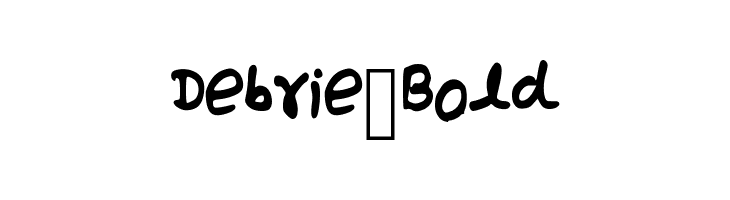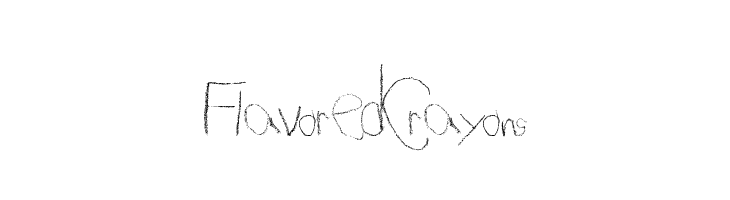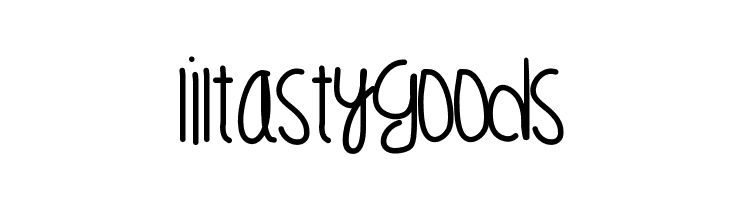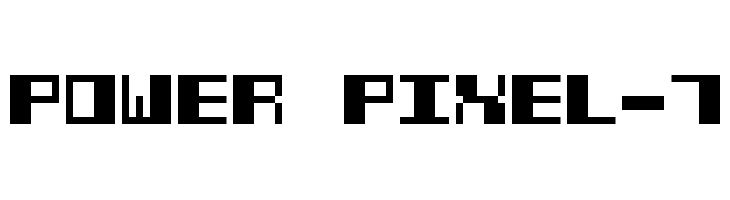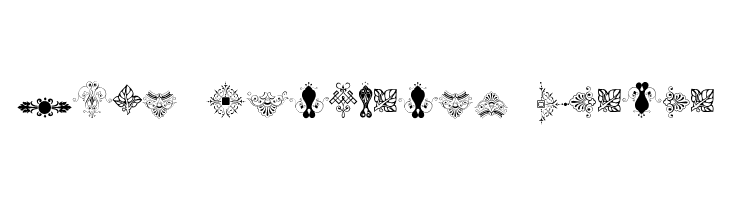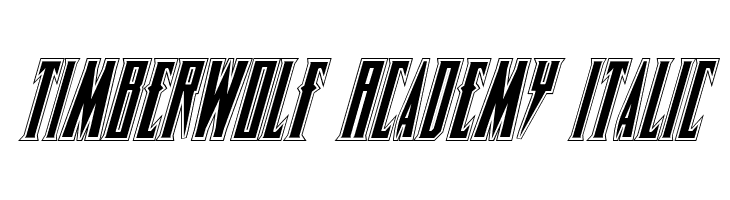
A modern, rounded sans-serif font with excellent readability.
An elegant and flowing italic font with smooth curves and moderate contrast.
A bold, angular font with a futuristic and avant-garde style.
A pixelated, monospaced typeface with a retro digital aesthetic.
A bold, decorative serif font with intricate details and a vintage flair.
A bold, playful handwritten font with rounded strokes and a casual style.
A dynamic and elegant script font with smooth, flowing connections.